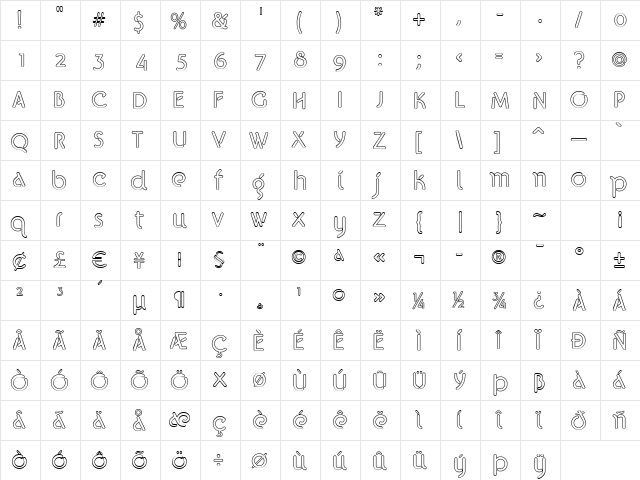
Gelato Regular Outline
Design Context for Gelato Typeface
Gelato brings ornamental detail and strong personality to headlines and identities, where visual impact matters more than quiet functionality.
Font Pairing: Pair with a clean neutral sans-serif for body copy to let Gelato's character lead without overwhelming the composition.
Pro Tip: Use Gelato exclusively at display sizes — it was designed to be seen, not read at length. Let a neutral companion handle body copy.